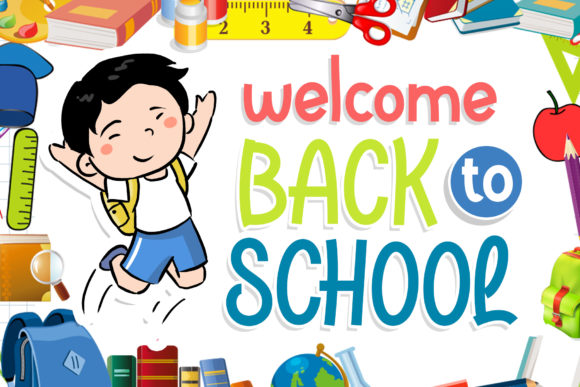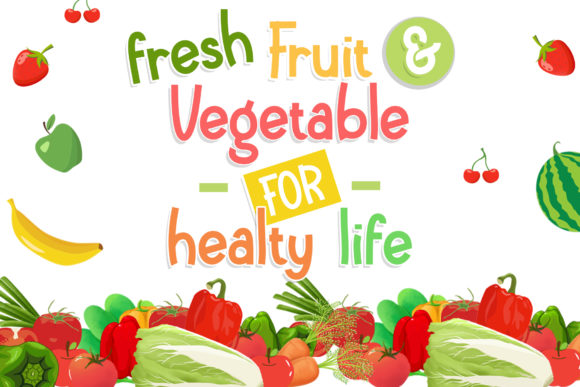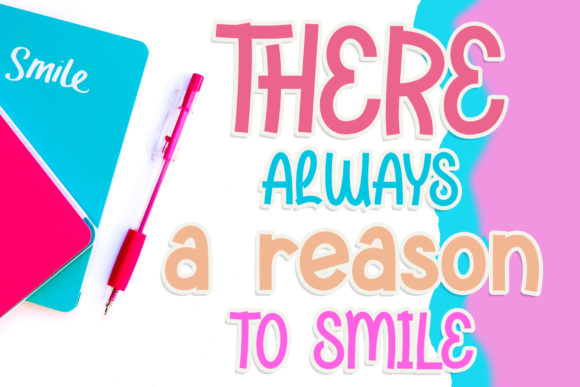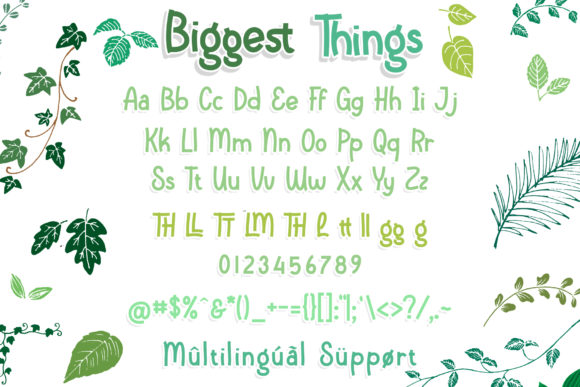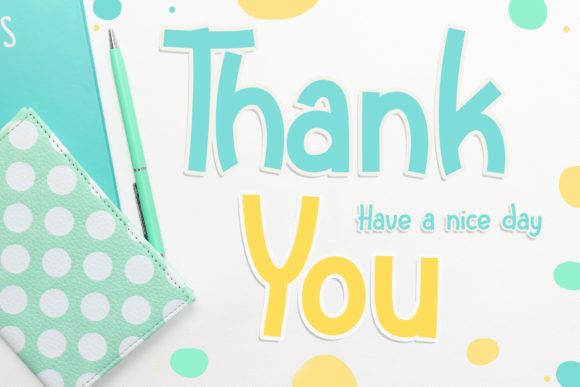
Biggest Things Font
About Biggest Things Font
Biggest Things is a unique handwritten font, with a funny and playful vibe. It’s the perfect font for turning any crafting idea into a true standout.